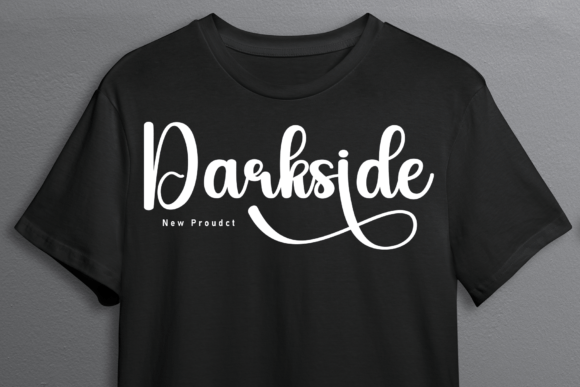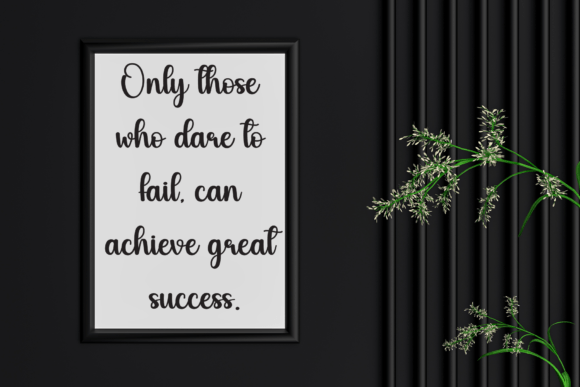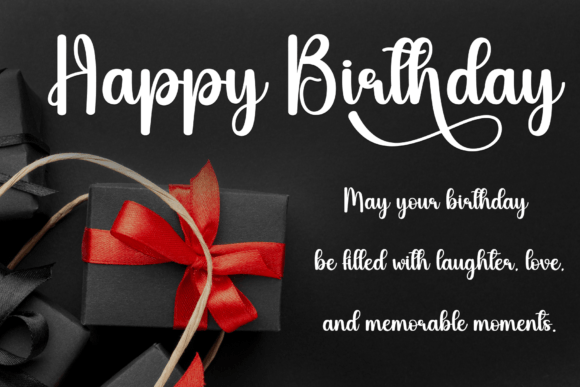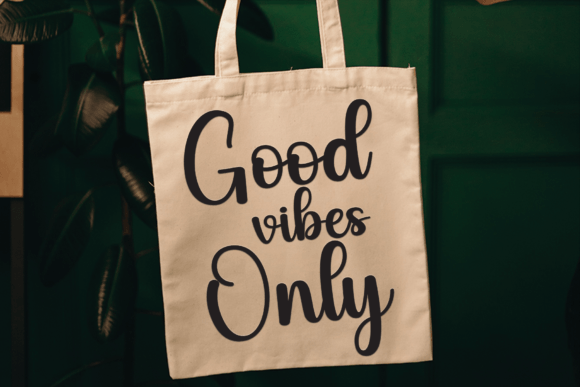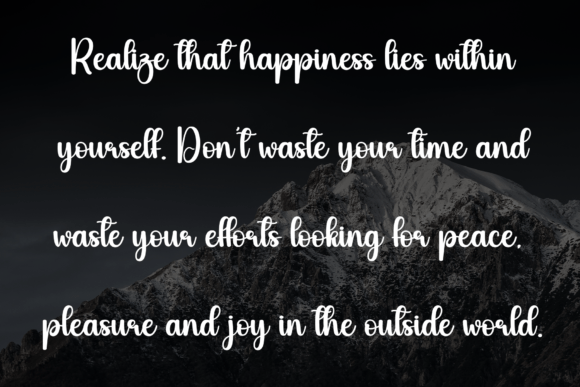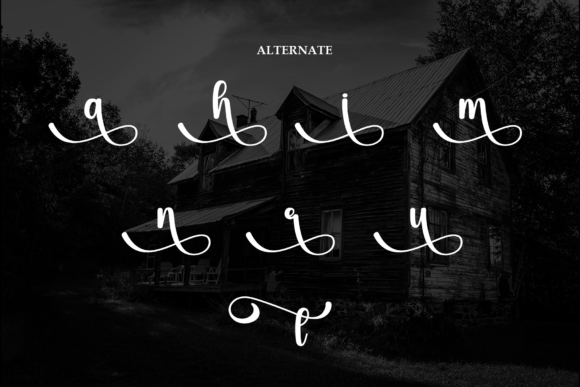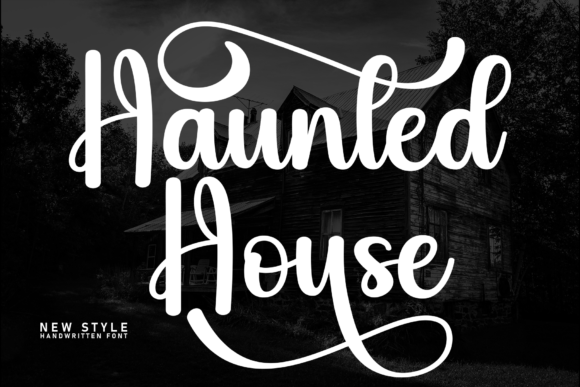
Unleash the Spooky Charm with Haunted House Font
Are you a designer or crafter looking for a font that adds a touch of whimsy and fun to your projects? Look no further than the Haunted House font! This sweet and friendly handwritten display font is perfect for creating eye-catching wedding invitations, greeting cards, and other designs that require a playful twist.
What is Haunted House Font?
Haunted House is a carefully crafted handwritten font that exudes a sense of warmth and friendliness. Its unique charm lies in its ability to balance sweetness with a touch of spookiness, making it an ideal choice for designers and crafters who want to add a dash of personality to their work.
Key Features of Haunted House Font
- Cute and Fun: The Haunted House font is designed to bring a smile to your face. Its playful and carefree vibe makes it perfect for projects that require a lighthearted touch.
- Handwritten Display Font: With its unique, hand-crafted feel, this font is sure to add a personal touch to your designs.
- Versatile: Whether you’re working on wedding invitations, greeting cards, or any other design project, Haunted House font is an excellent choice.
- Easy to Read: Despite its playful nature, the font remains clear and easy to read, making it perfect for body text and titles.
Use Cases for Haunted House Font
The Haunted House font is incredibly versatile and can be used in a variety of projects, including:
- Wedding Invitations: Add a touch of whimsy and romance to your wedding invitations and save-the-date cards.
- Greeting Cards: Create fun and playful greeting cards for birthdays, holidays, and other special occasions.
- Party Decorations: Use the Haunted House font to create eye-catching party decorations, such as banners, garlands, and signs.
- Branding and Packaging: Add a touch of personality to your brand’s packaging and marketing materials with this unique font.
Tips for Using Haunted House Font
To get the most out of the Haunted House font, here are a few tips to keep in mind:
- Pair with Neutral Colors: Balance out the playfulness of the font by pairing it with neutral colors like white, black, or pastel shades.
- Experiment with Font Sizes: Play around with different font sizes to create visual interest and hierarchy in your designs.
- Add Illustrations: Combine the Haunted House font with fun and playful illustrations to create a unique and eye-catching design.
In conclusion, the Haunted House font is a sweet and friendly handwritten display font that’s perfect for designers and crafters looking to add a touch of whimsy and fun to their projects. With its unique charm, versatility, and ease of use, this font is sure to become a favorite in your design arsenal. So why wait? Unleash the spooky charm of Haunted House font and take your designs to the next level!